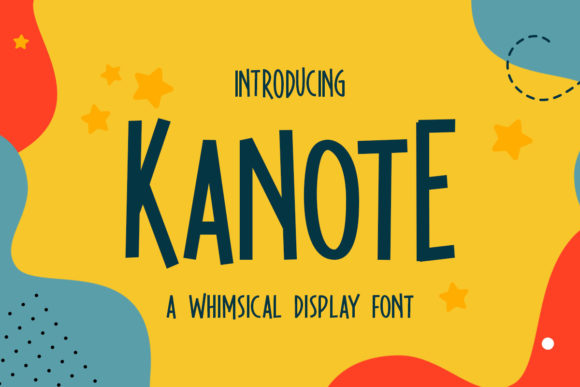
Dive into the enchanting realm of storytelling with Kanote, an extraordinary display font designed to bring life to your children's book covers. Step into a world where whimsy and imagination intertwine, where words sing and colors dance to create a captivating symphony of visual delight.
Kanote is not merely a font; it's a magical paintbrush that transforms ordinary stories into extraordinary adventures. Its playful curves and energetic strokes capture the wonder and innocence of childhood, inviting young readers to embark on captivating journeys filled with laughter, love, and lessons.
With Kanote, every letter becomes a character, every word a stepping stone into a world of imagination. Its charming imperfections and vibrant energy exude a sense of playfulness and creativity, reflecting the limitless possibilities that lie within a child's heart.
Let Kanote be your artistic partner in crafting unforgettable covers that draw readers into the depths of your stories. Its unique personality shines through in every letter, adding a touch of whimsy and wonder to your creations.
Kanote is more than just a font; it's an invitation to explore the boundless realms of creativity, where dreams take flight and stories come alive. Embrace the magic of Kanote and watch your children's books become masterpieces that captivate and inspire.